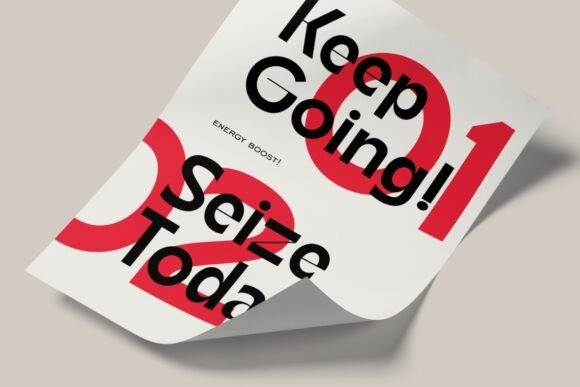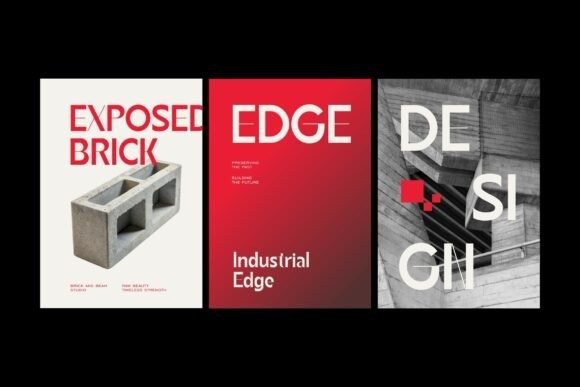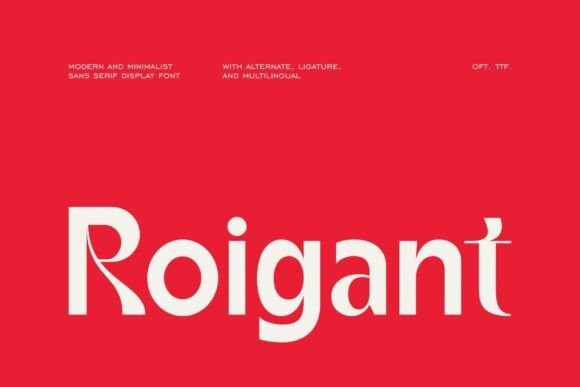
Roigant Font
Roigant Font is a contemporary sans serif display font that’s modern, minimalist, and sleek typefaces. It sports with subtle decorative twists like the curvy “R”, and a crisp style making it ideal for corporate branding, digital interfaces and editorial designs.
Roigant excels in display settings such as headlines, titles, modern branding, editorial design, bold signage, logo, poster, architecture, presentations, packaging, magazine titles, heading, advertisements, short or long texts.